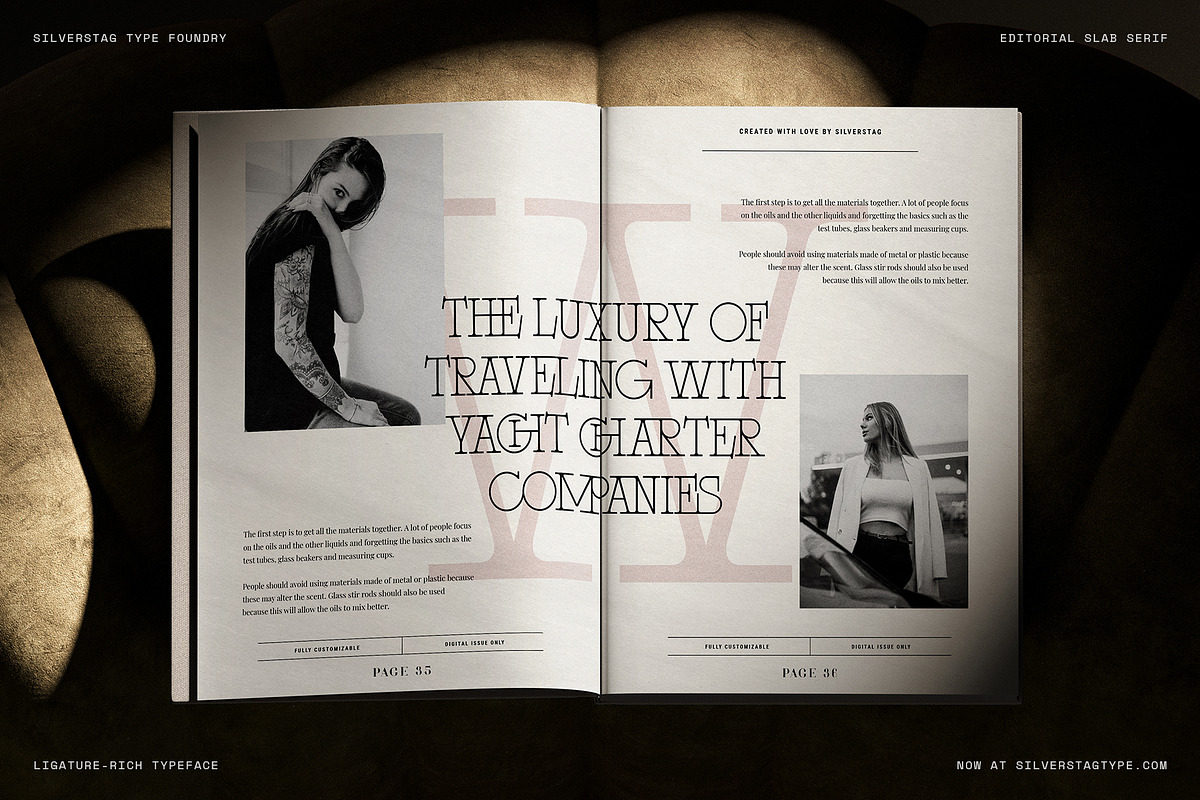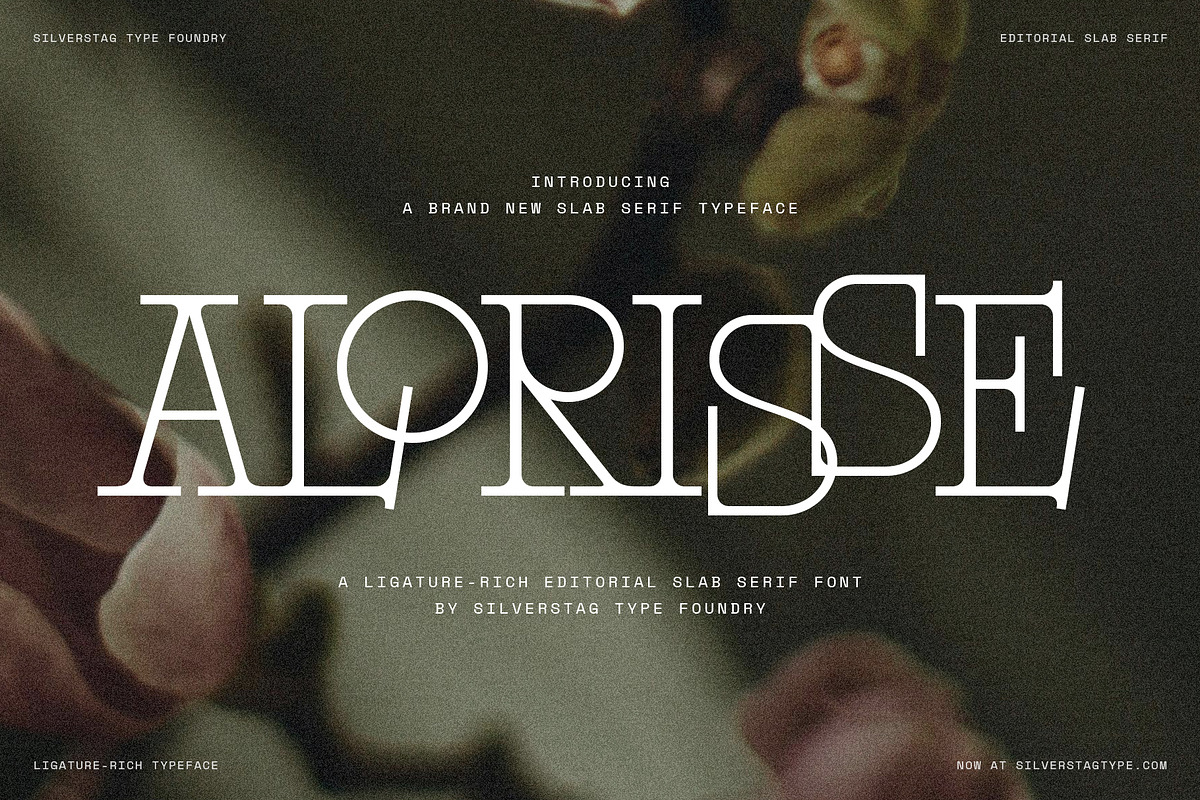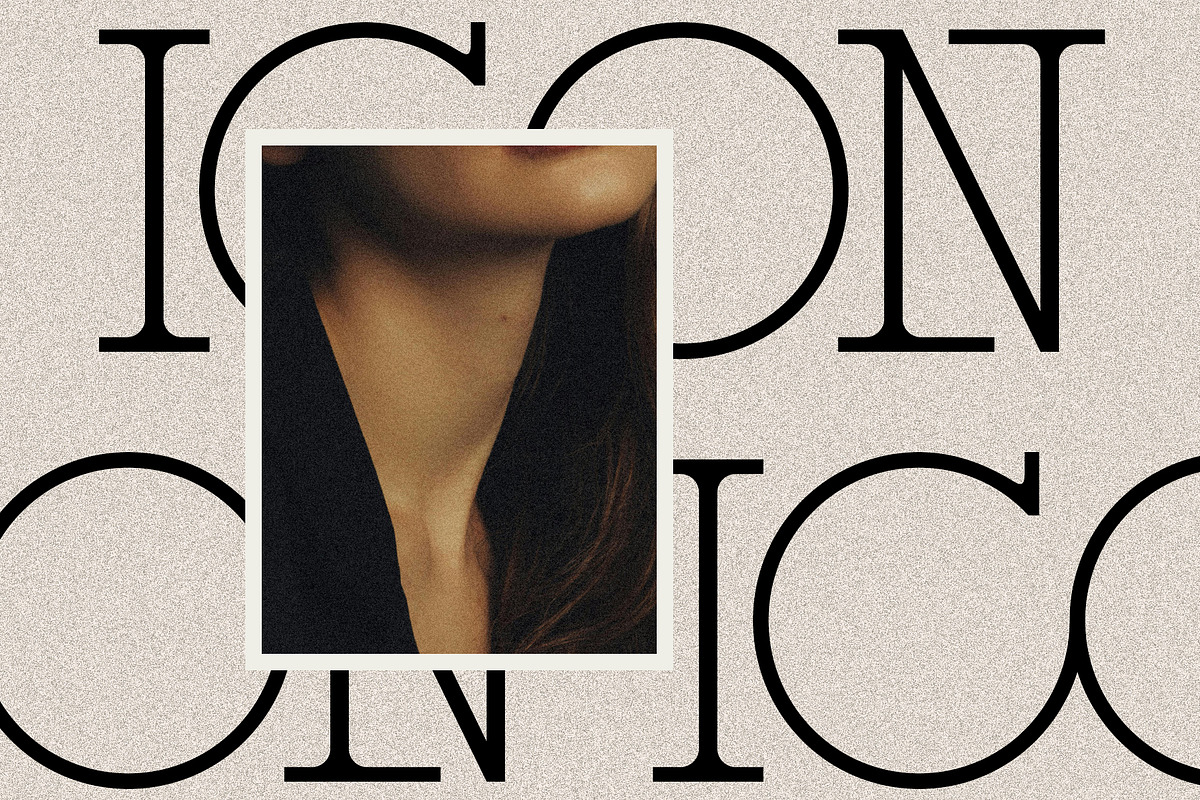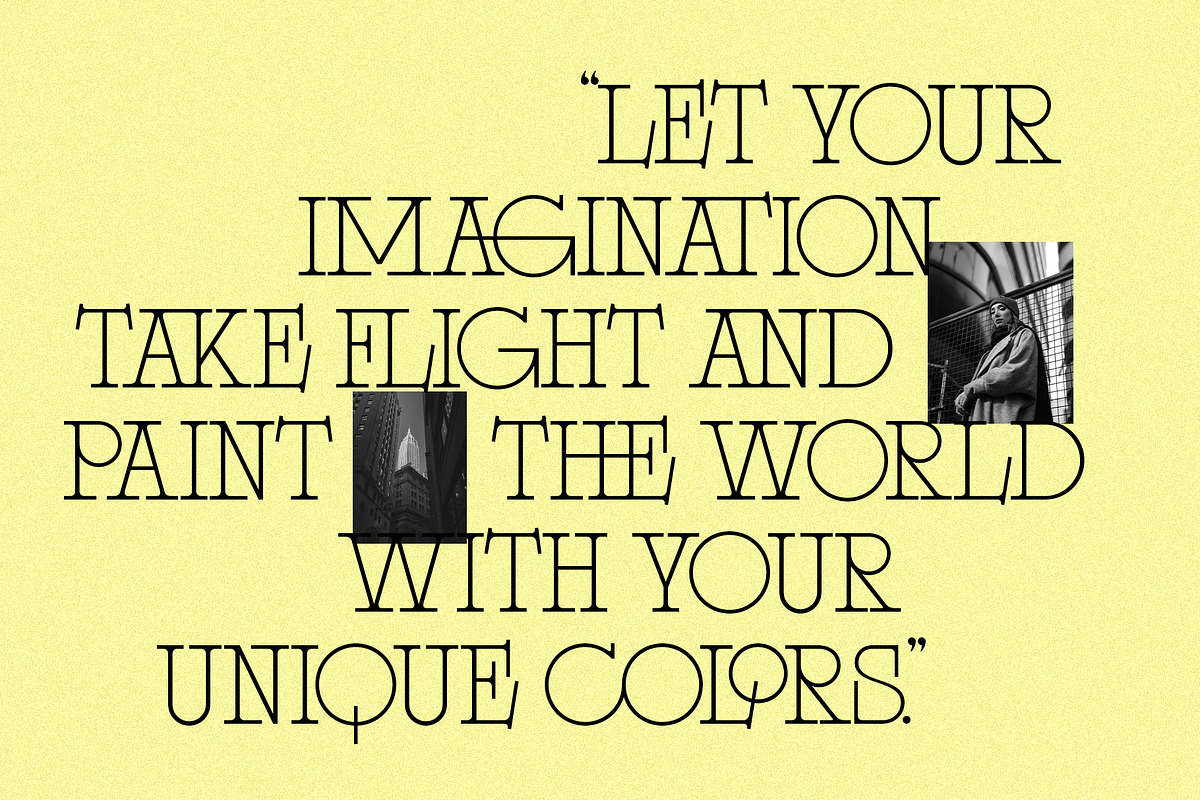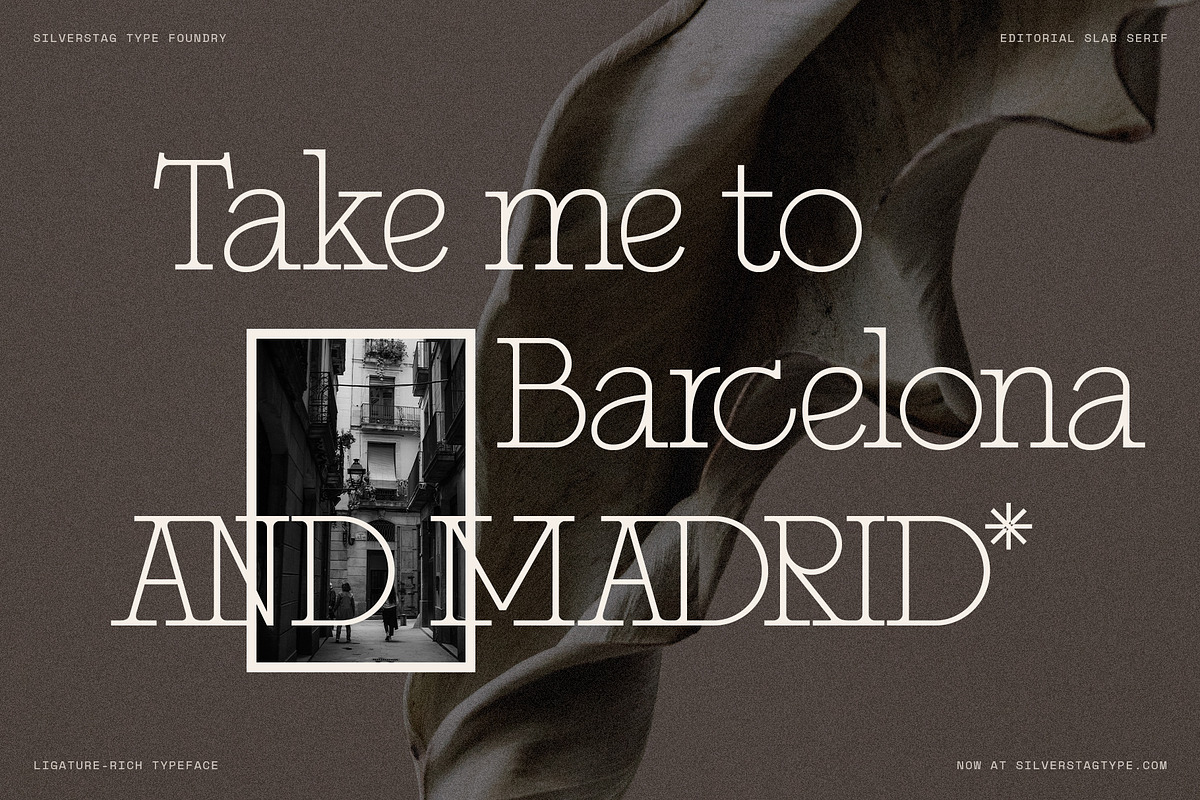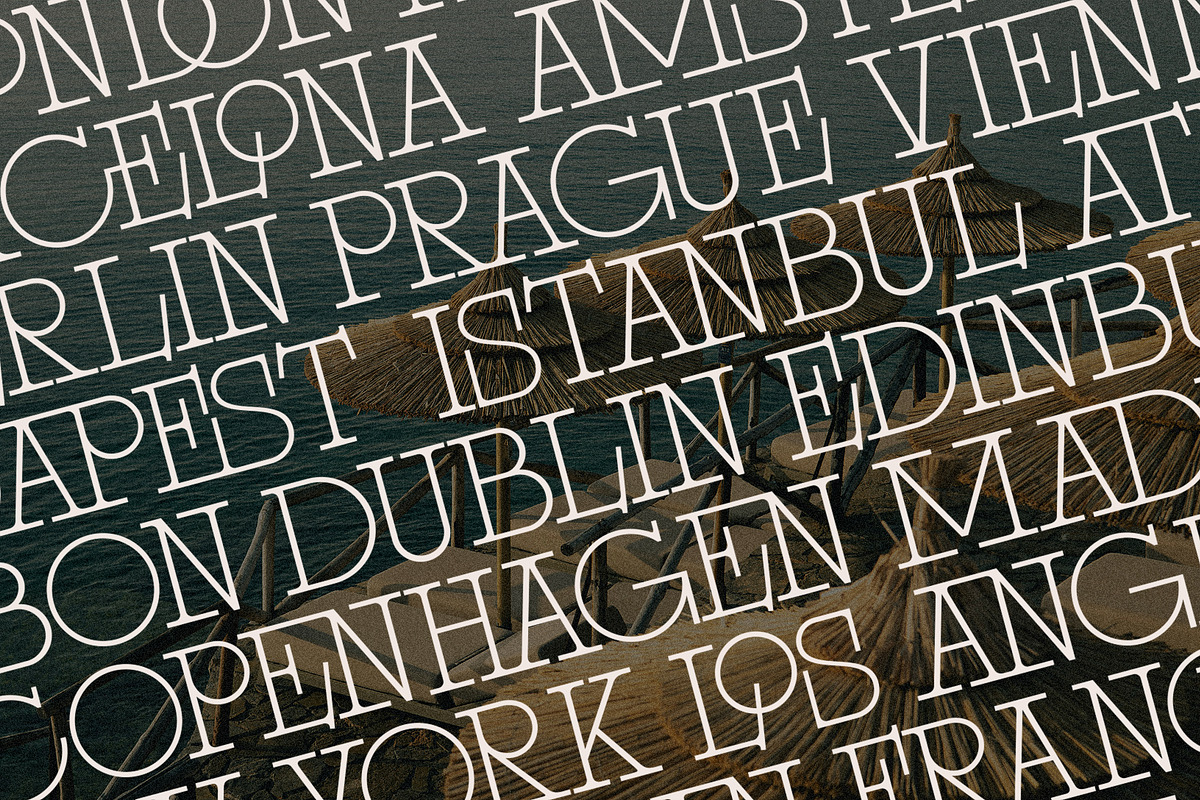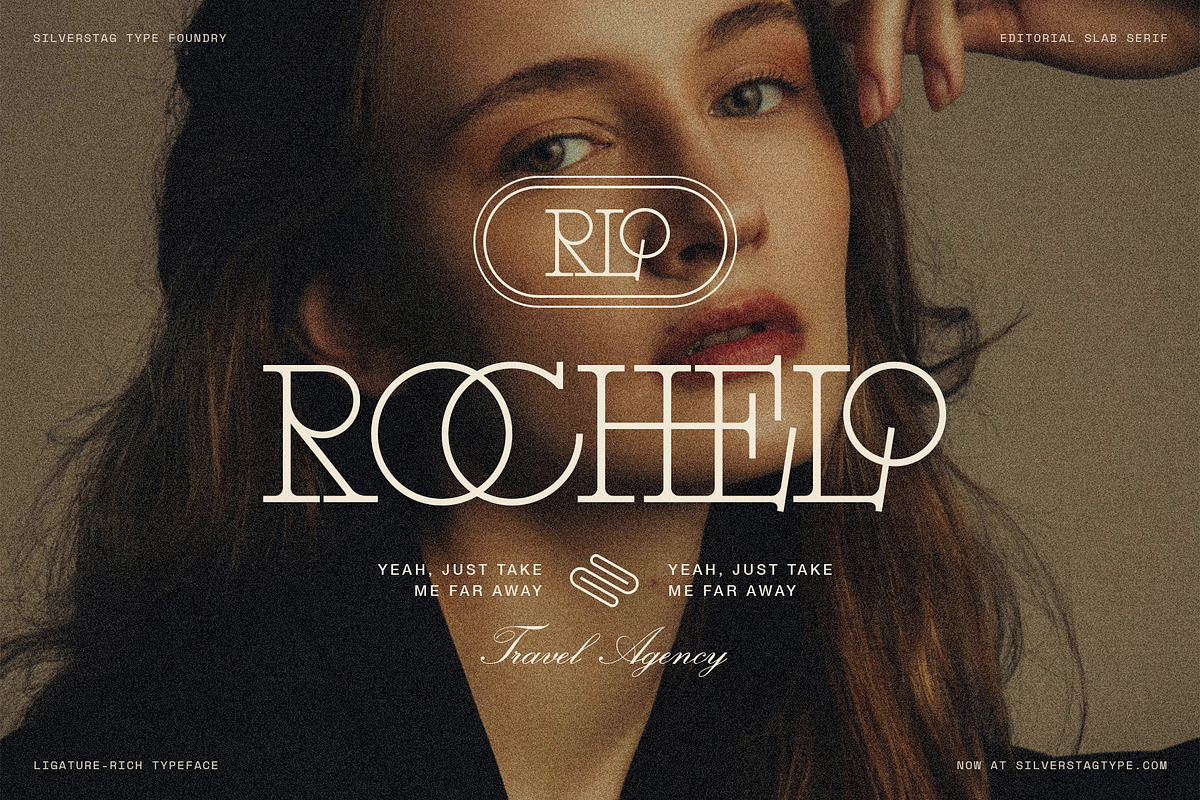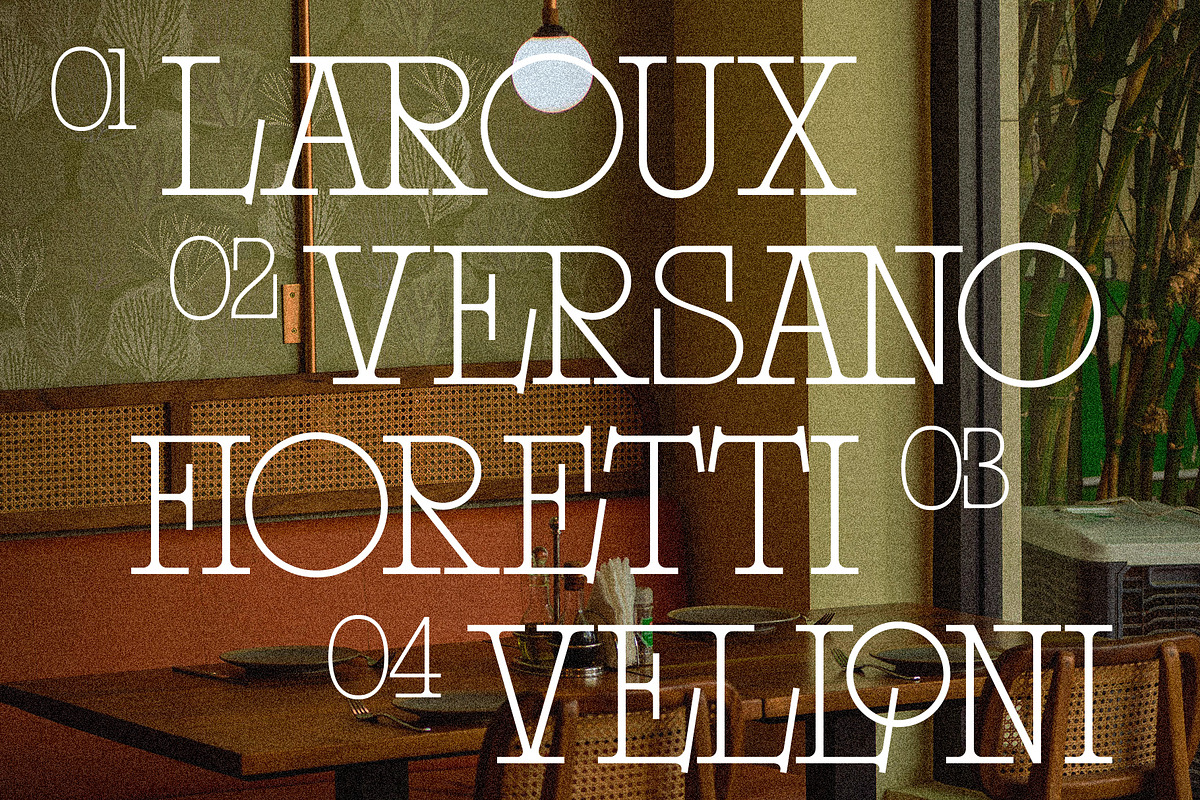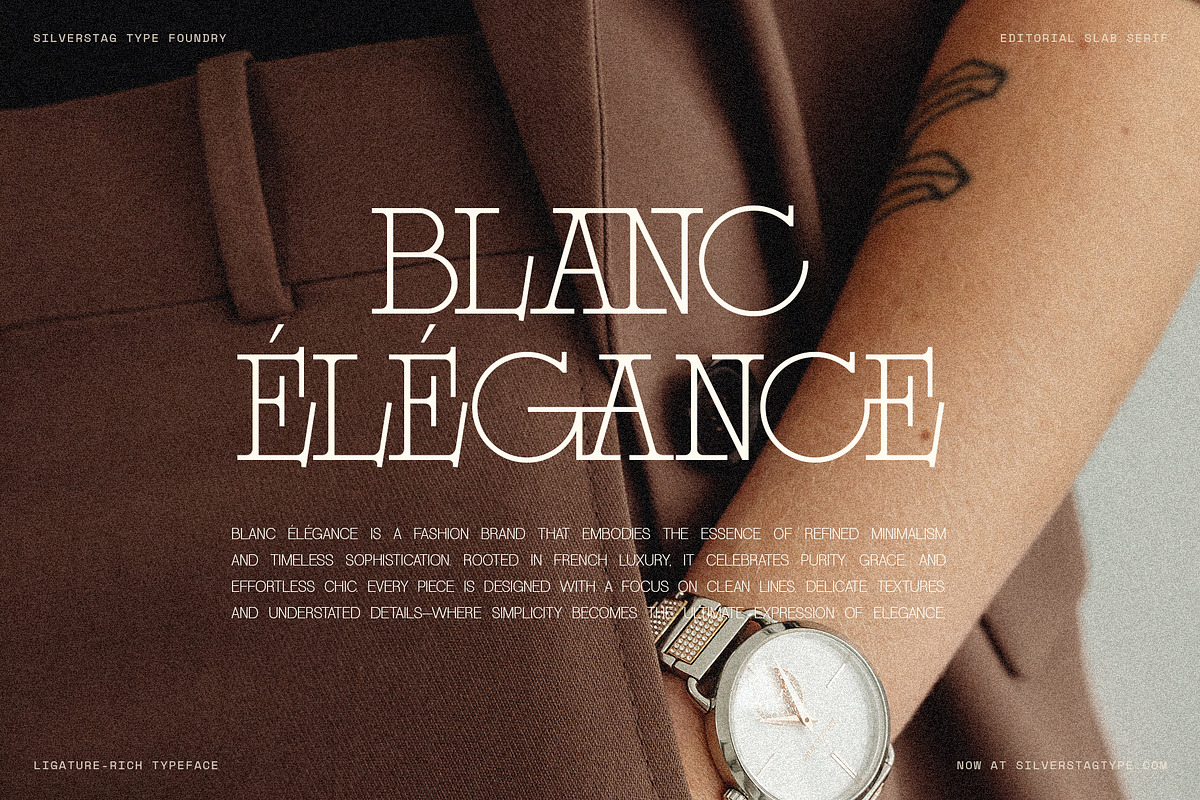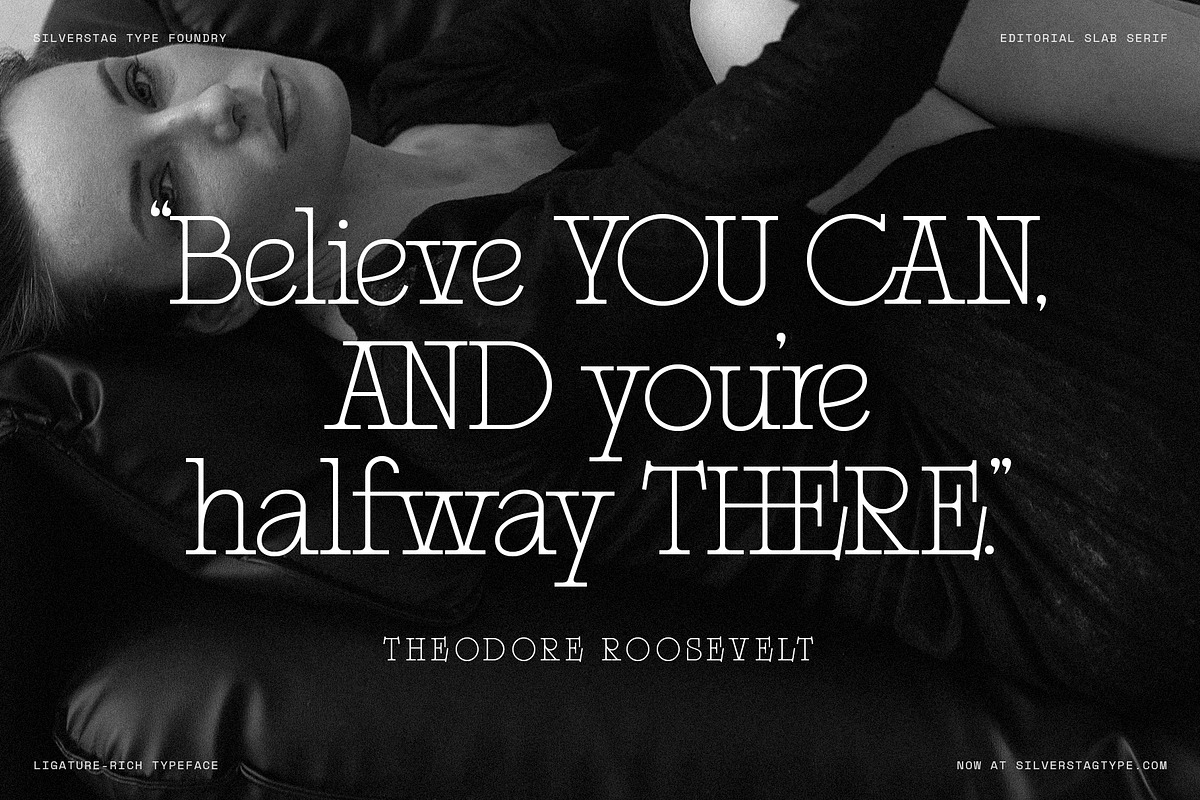
Alorisse – Editorial Ligature Font
Meet SLTF Alorisse – a bold editorial slab serif typeface that brings expressive elegance to modern design. Crafted for designers who love strong visual storytelling, Alorisse is a high-contrast serif font packed with over 150 ligatures and alternates. It blends classic slab serif structure with contemporary details, making it ideal for branding, fashion editorials, packaging, and high-end visual projects.
Every character in Alorisse has been designed with precision and style—whether it’s the sharp serifs, the dramatic forms, or the flowing ligatures that create a unique rhythm in your layout. From uppercase elegance to quirky lowercase ligature connections, this font brings sophistication with a modern twist.
- Editorial layouts & magazines
- Luxury fashion branding
- Elegant product packaging
- Social media design with personality
- Over 150 ligatures and alternates
- Uppercase and lowercase alphabet
Bring bold editorial energy to your typography with SLTF Alorisse – where sharp meets soft and structure meets flair.